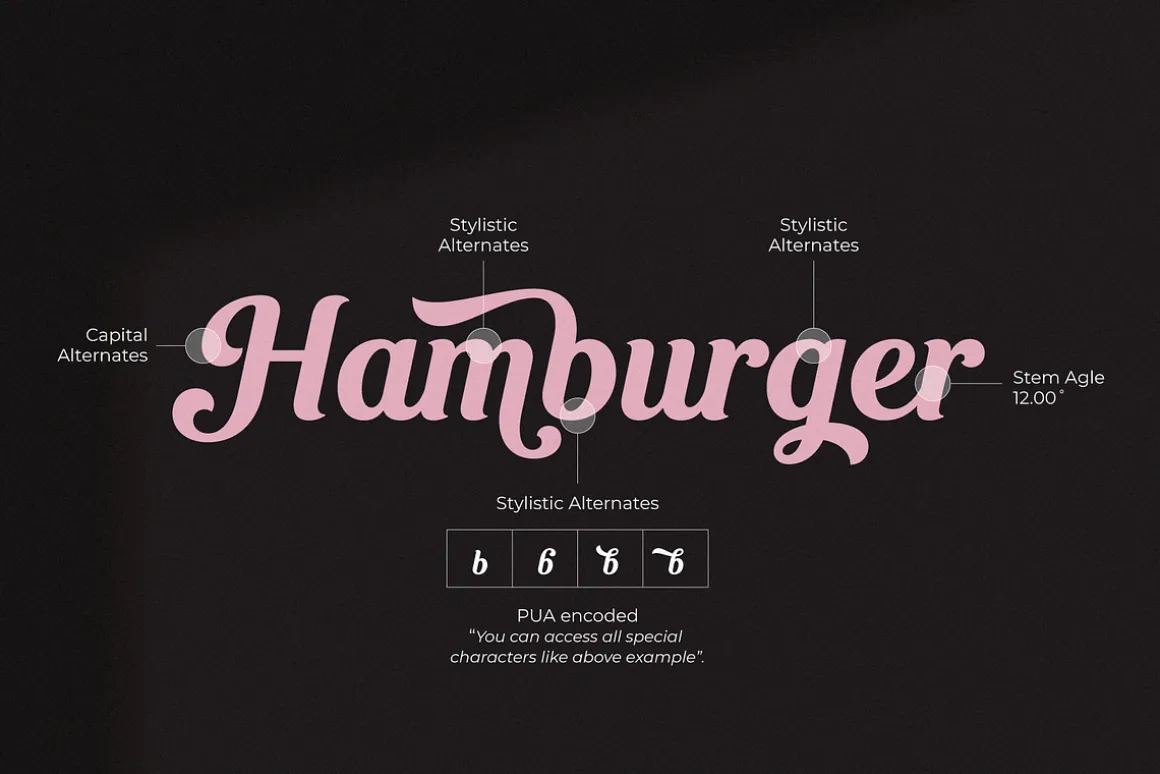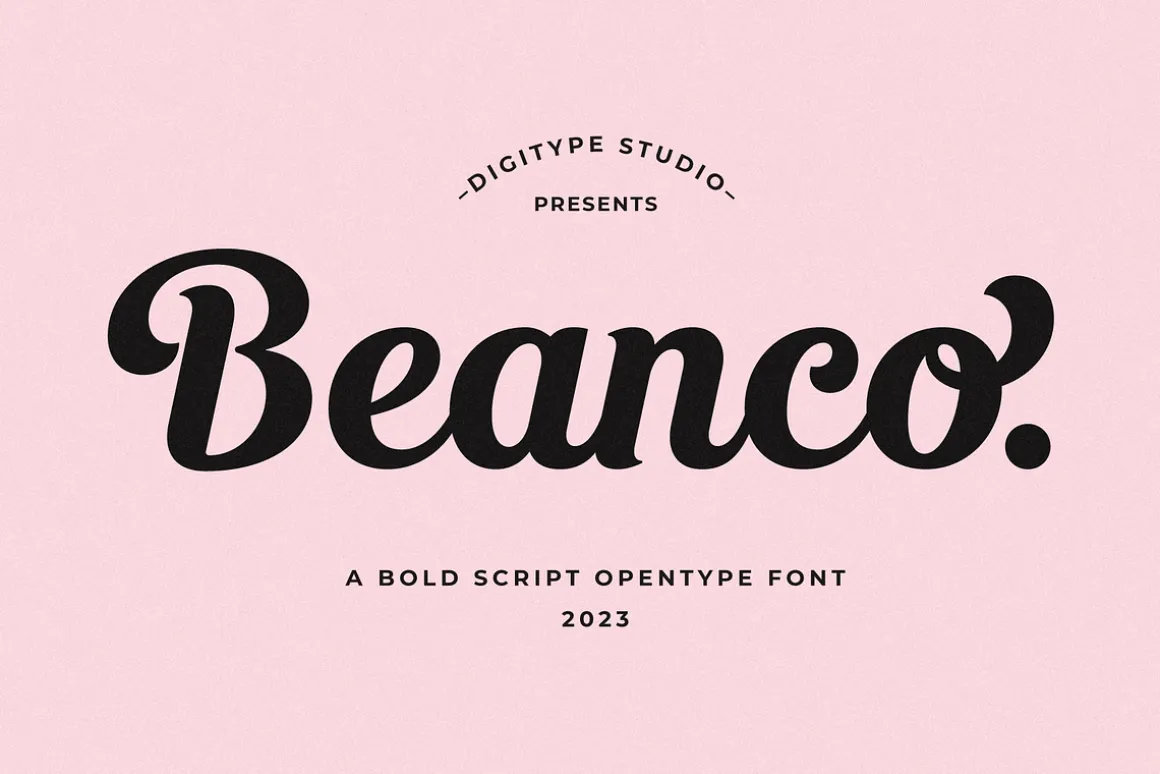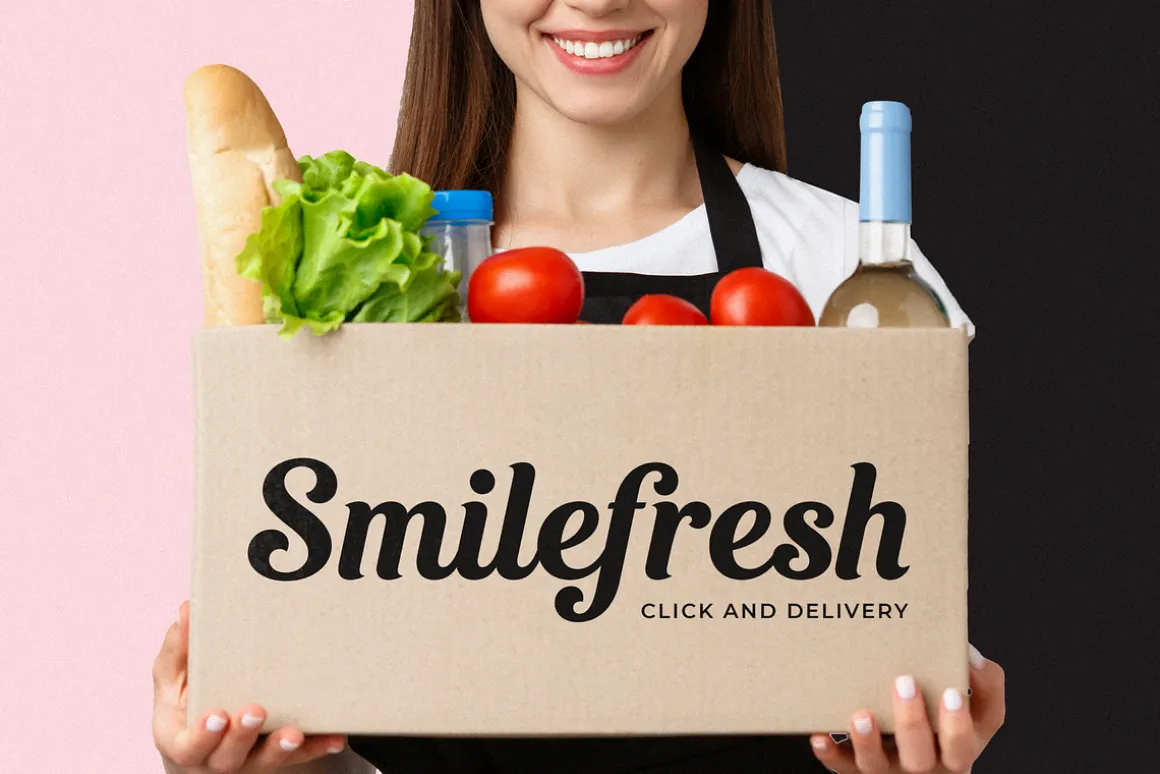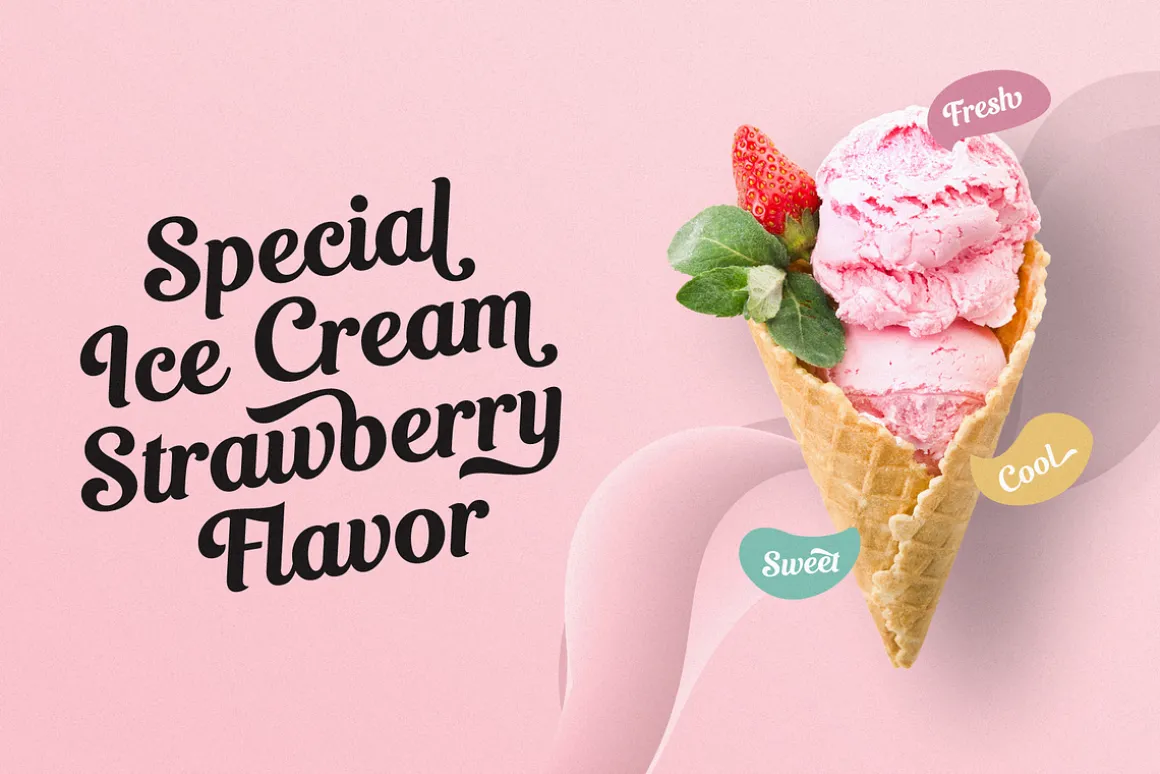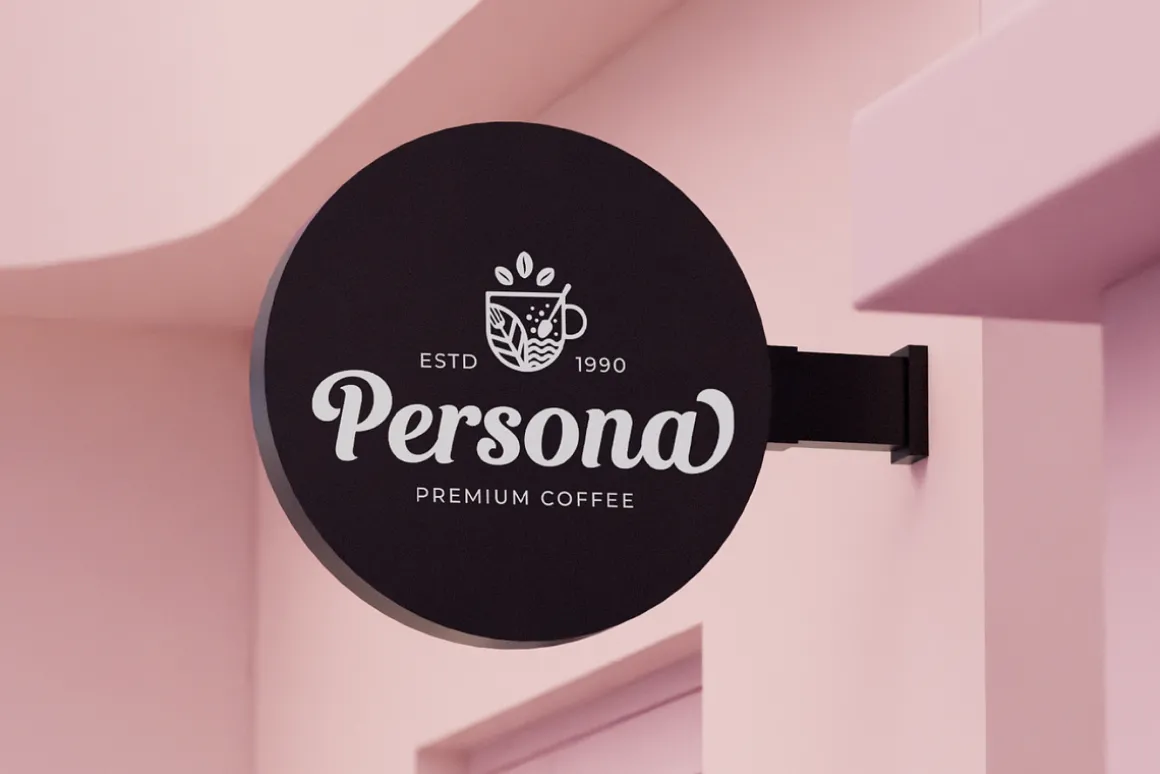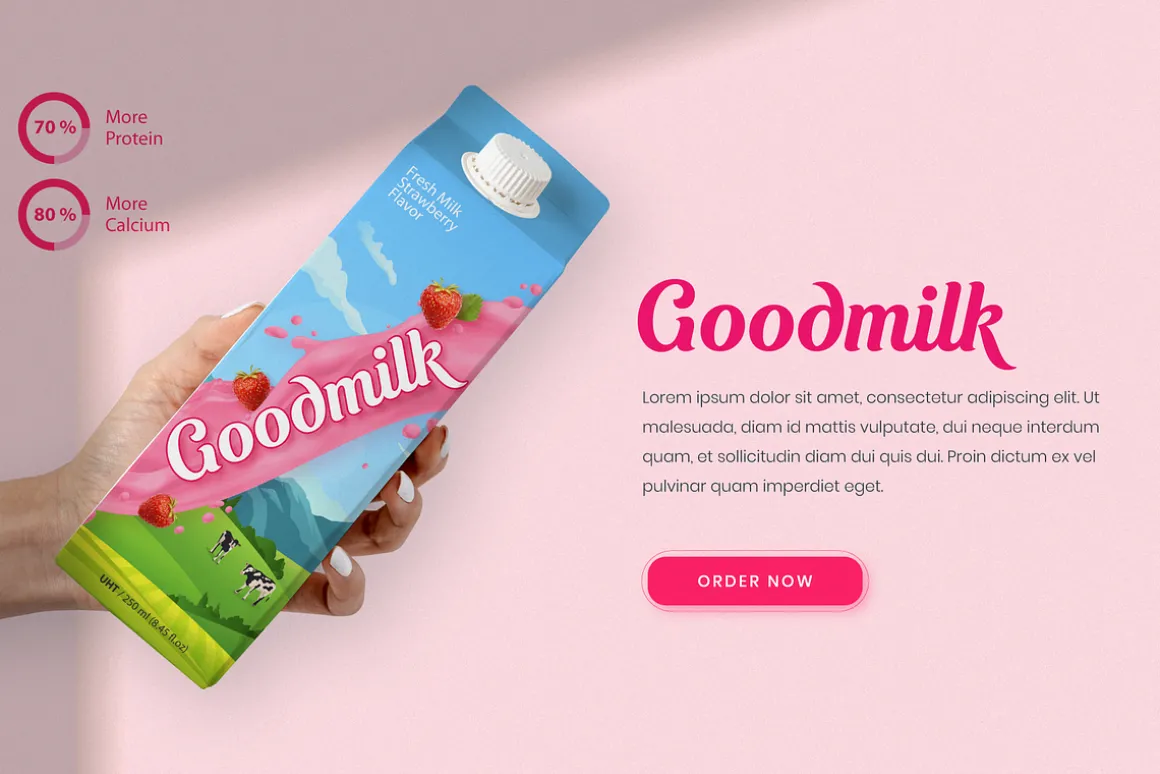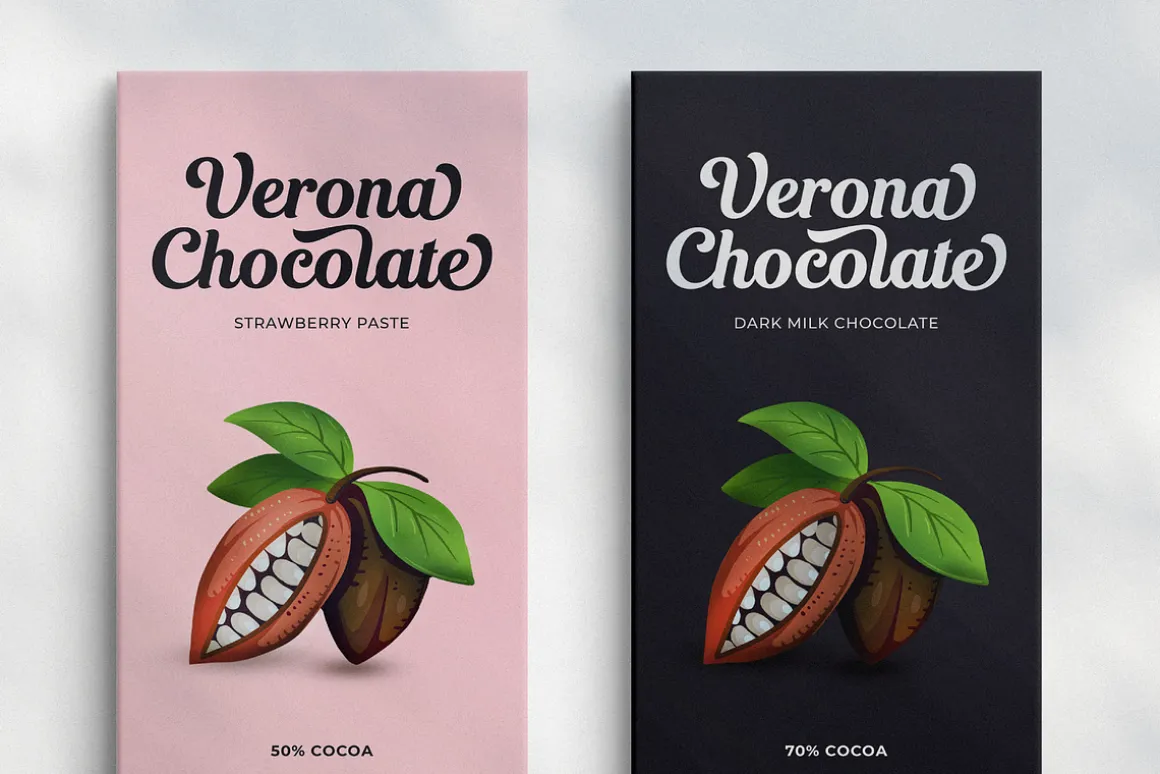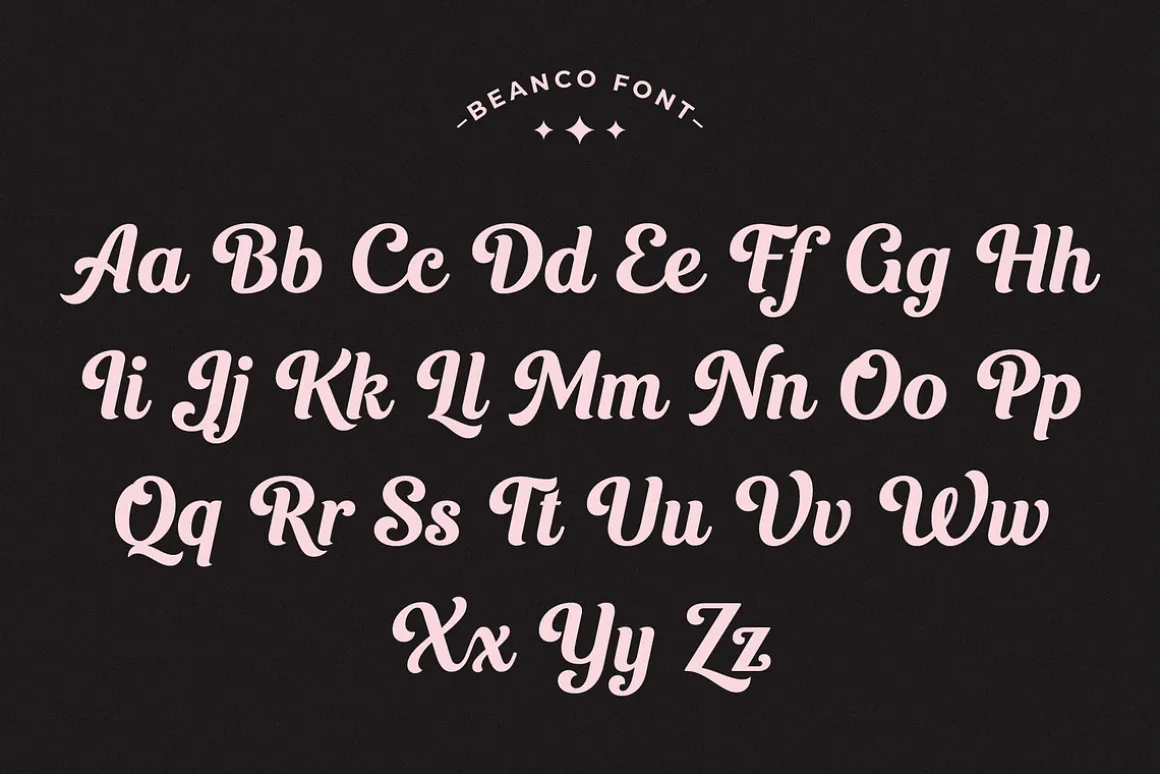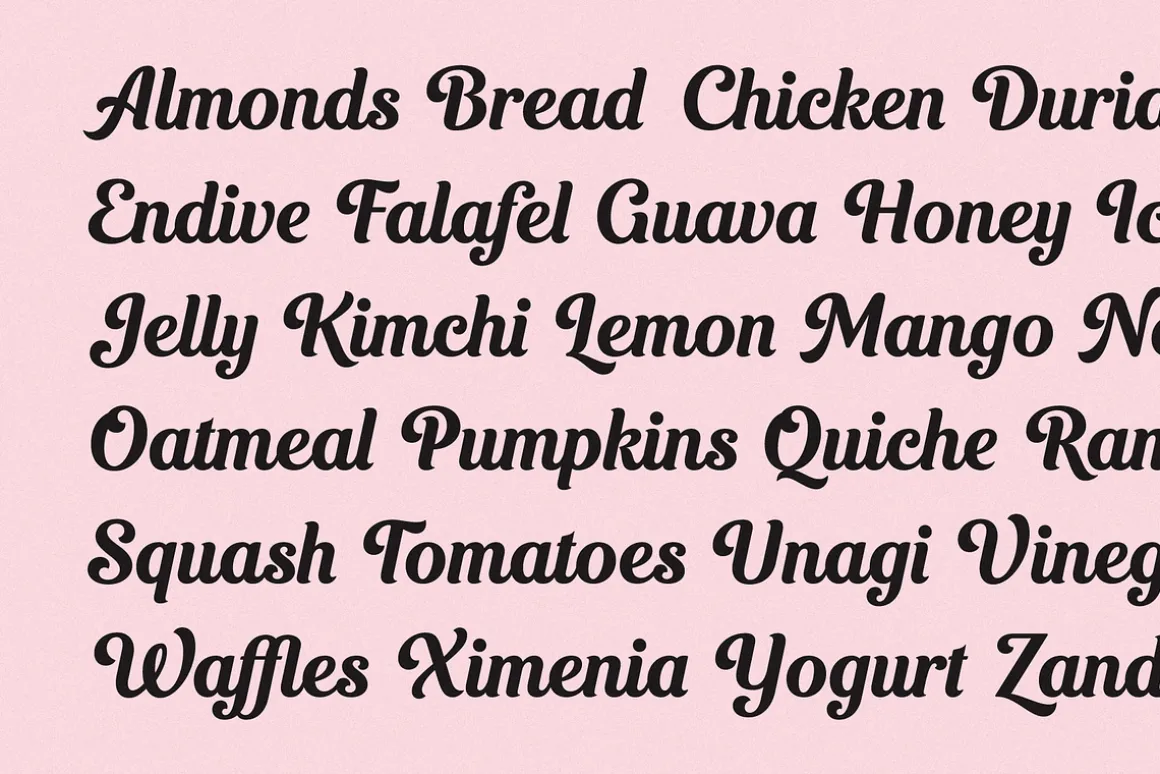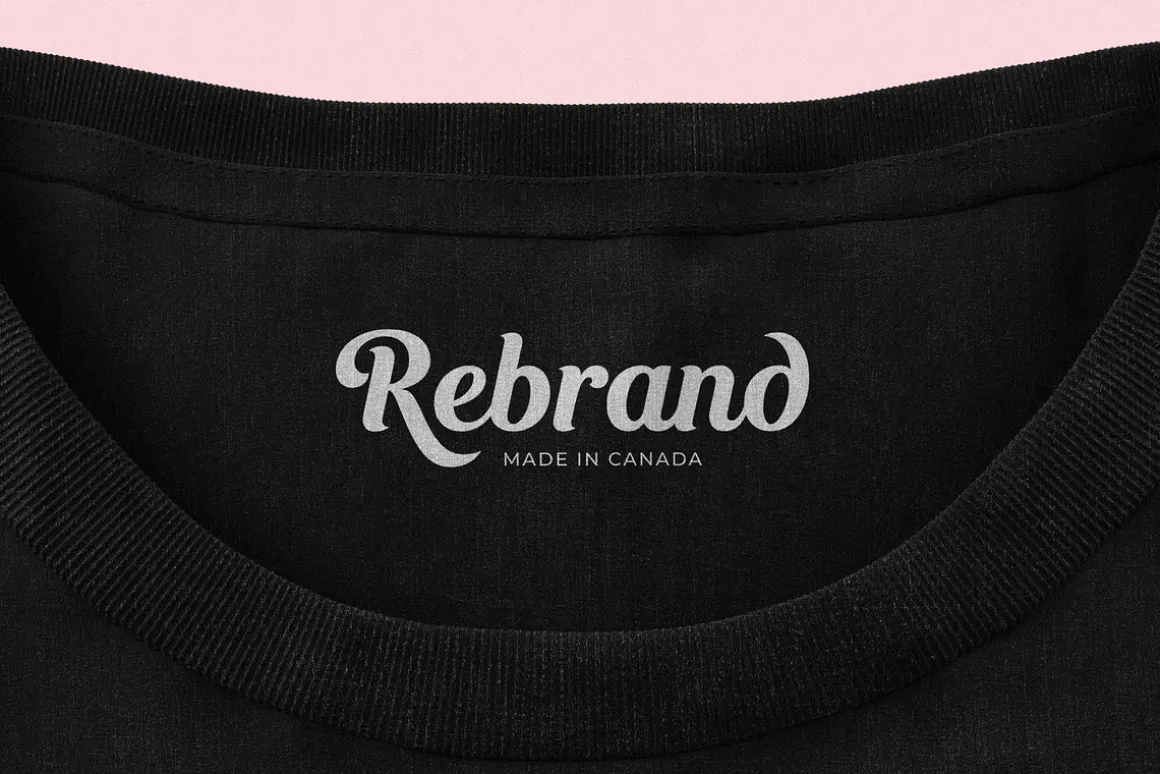
Beanco Font is a retro bold script font created by Digitype Studio with vintage vibes. This font is cute, whimsical, and playful. This font is perfectly made to be applied especially in logos, and other various formal forms such as invitations, labels, logos, books, greeting/wedding cards, packaging, fashion, makeup, stationery, novels, or any advertising purpose.